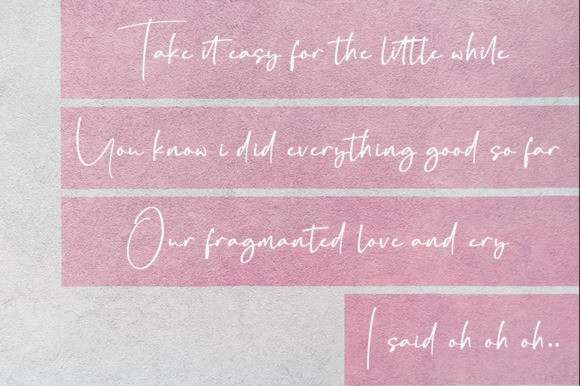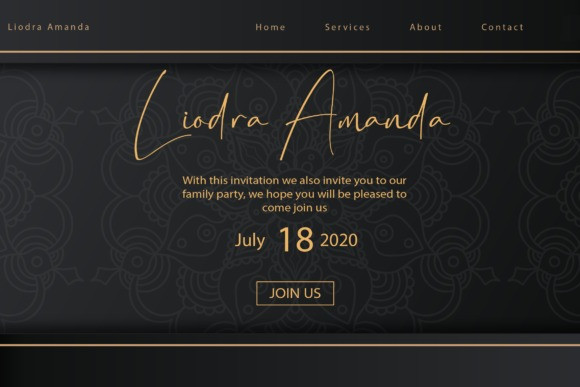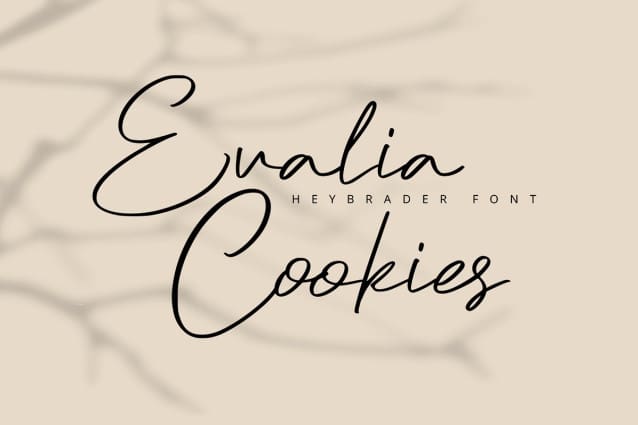
Heybrader Handwritten Font
Heybrader Handwritten Font, a handwritten script font that brings a personal and artistic flair to your design projects. Perfect for designers, artists, and creatives seeking to infuse their work with authenticity and charm, Heybrader offers a beautifully crafted, flowing script that captures the essence of hand-drawn lettering.
Ideal for wedding invitations, greeting cards, social media graphics, and branding materials, Heybrader’s elegant and natural strokes provide a warm and inviting aesthetic. Each character is meticulously designed to convey the spontaneity and uniqueness of true handwriting, ensuring your designs resonate with a personal touch.
The “Heybrader” font includes a complete set of uppercase and lowercase letters, numbers, punctuation marks, and a variety of ligatures and stylistic alternates. This versatility allows for endless creative possibilities, whether you’re creating heartfelt invitations or stylish branding.
Enhance your designs with Heybrader Handwritten, the handwritten script font that adds a touch of artistic elegance and personal charm to every project.